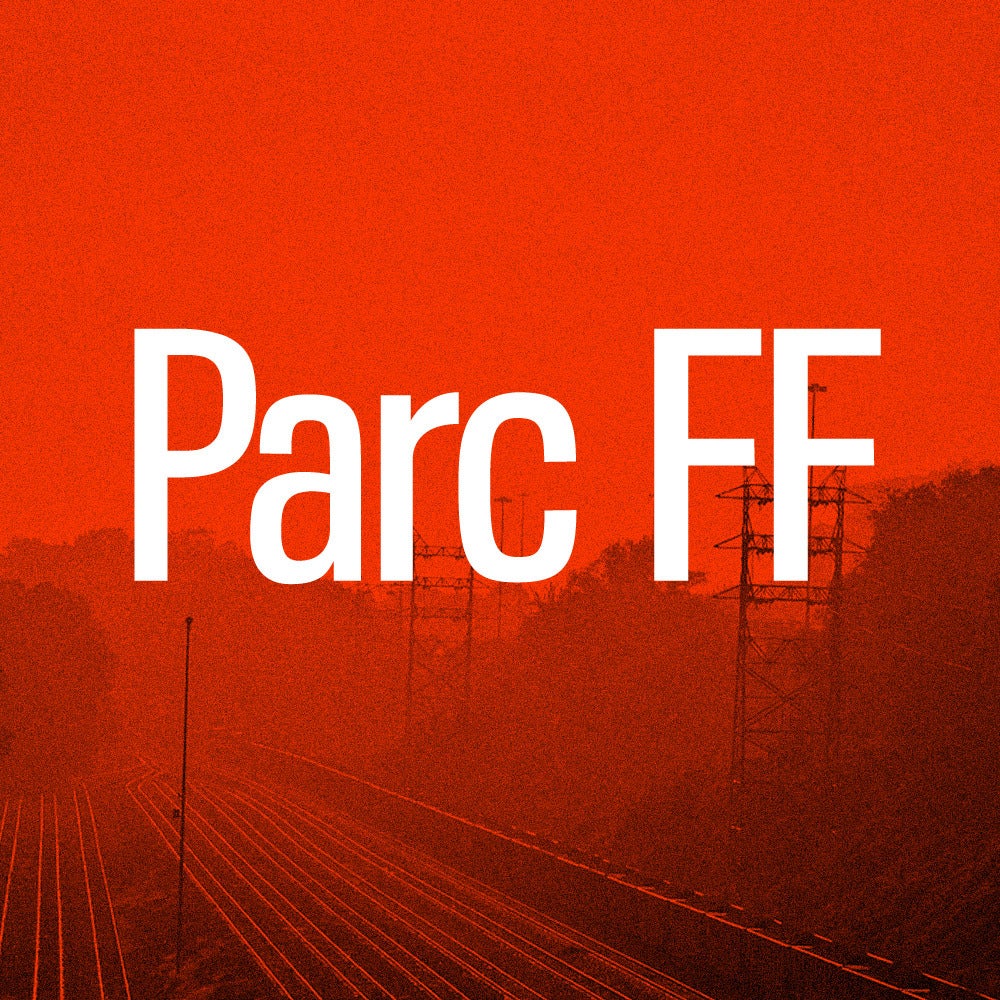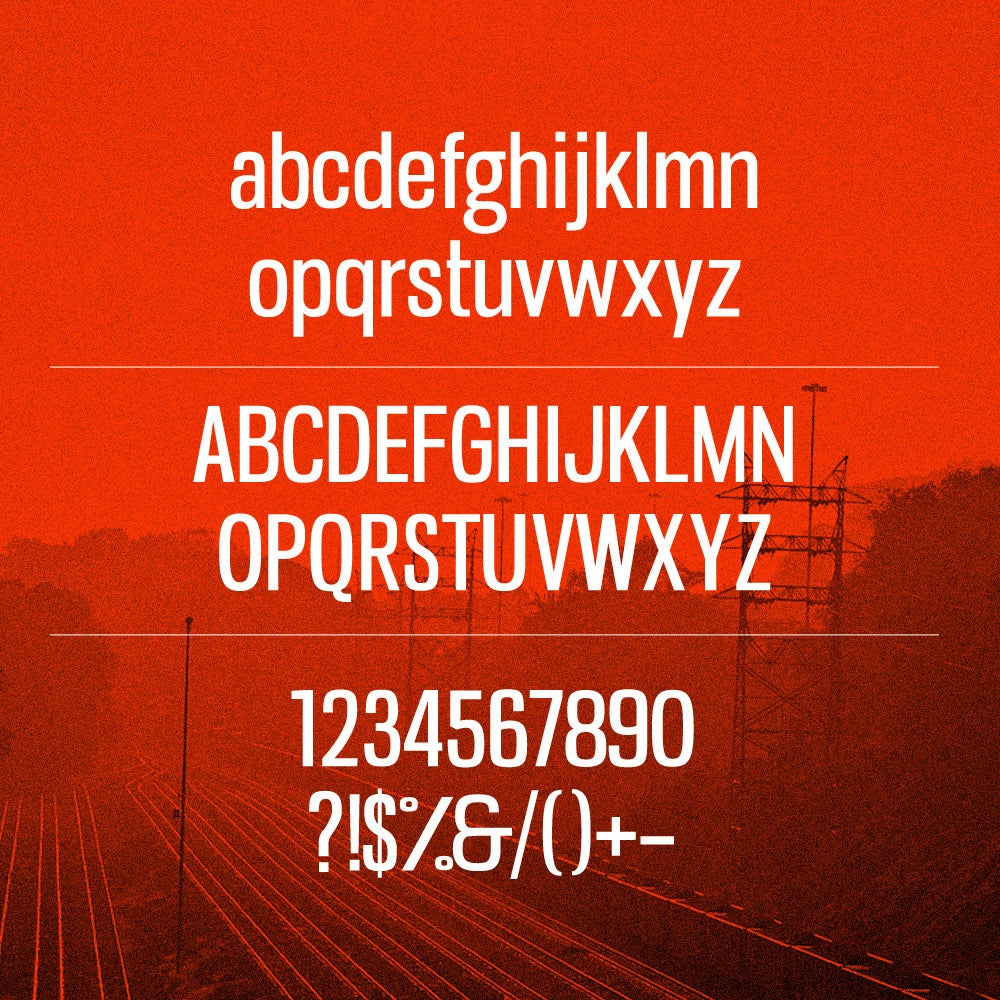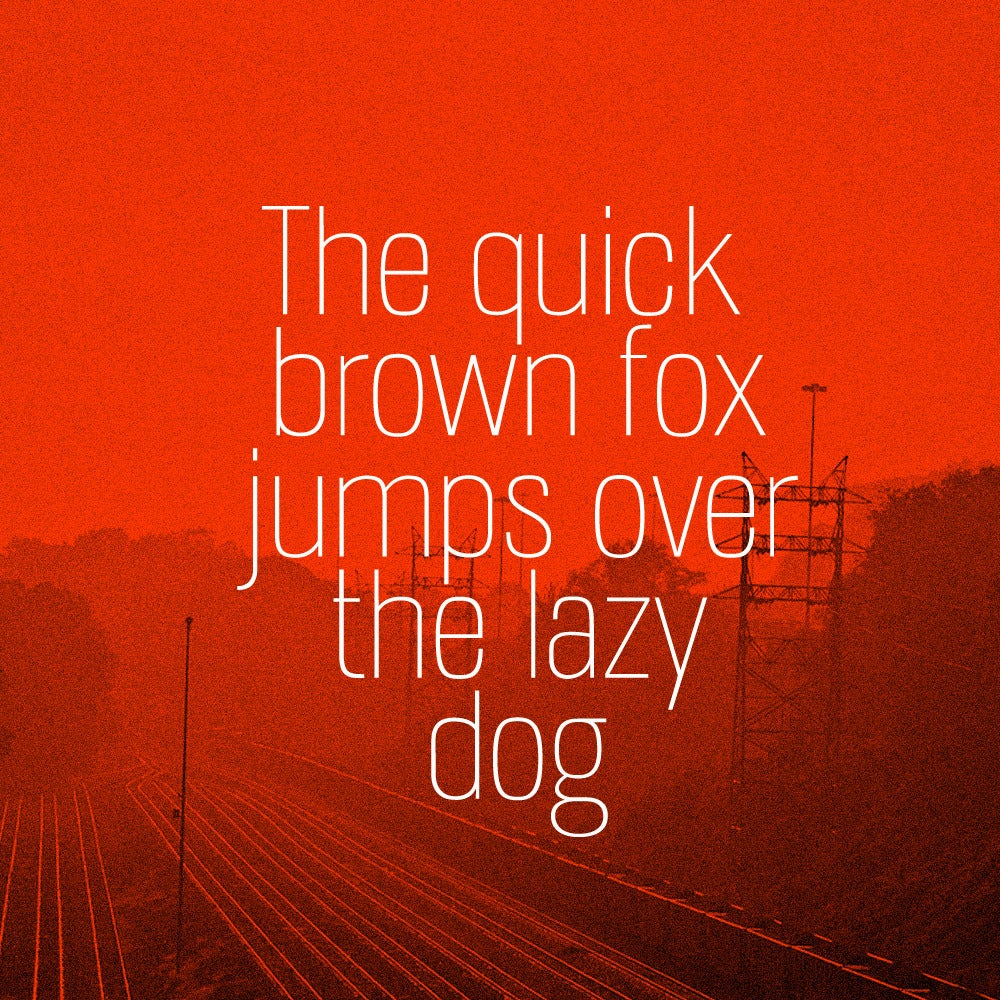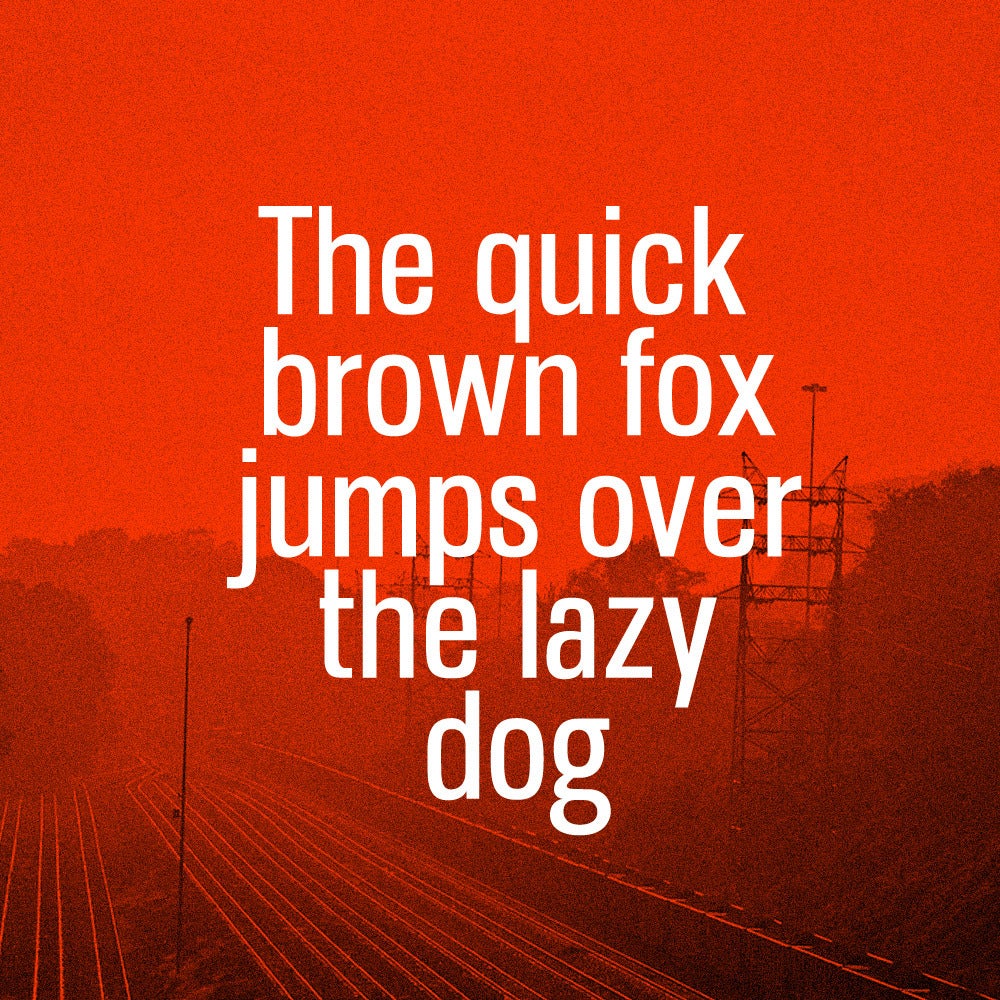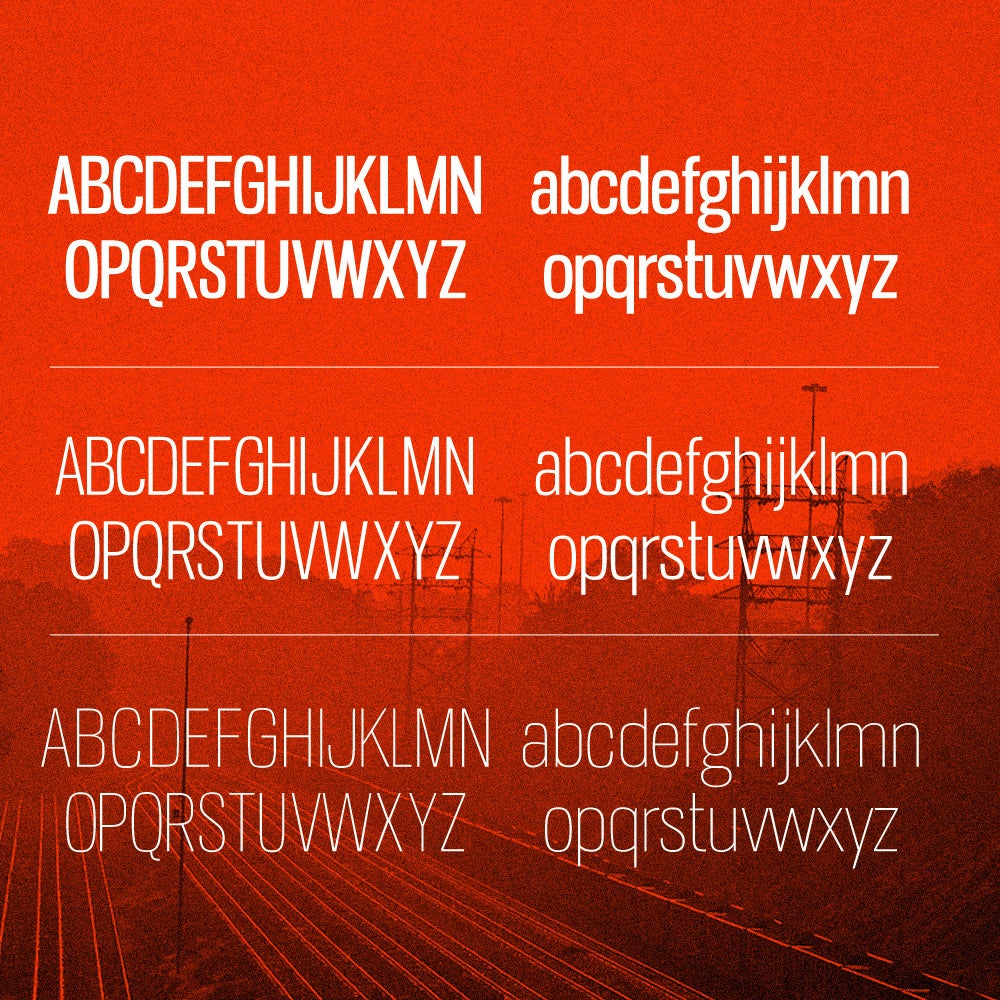
Parc FF
Parc FF is a grotesk font, with three types bold, regular
and light. The idea was to create a font with the cleanliness and smooth
lines in each letter. The font was used as a display typography
in an upcoming documentary film.